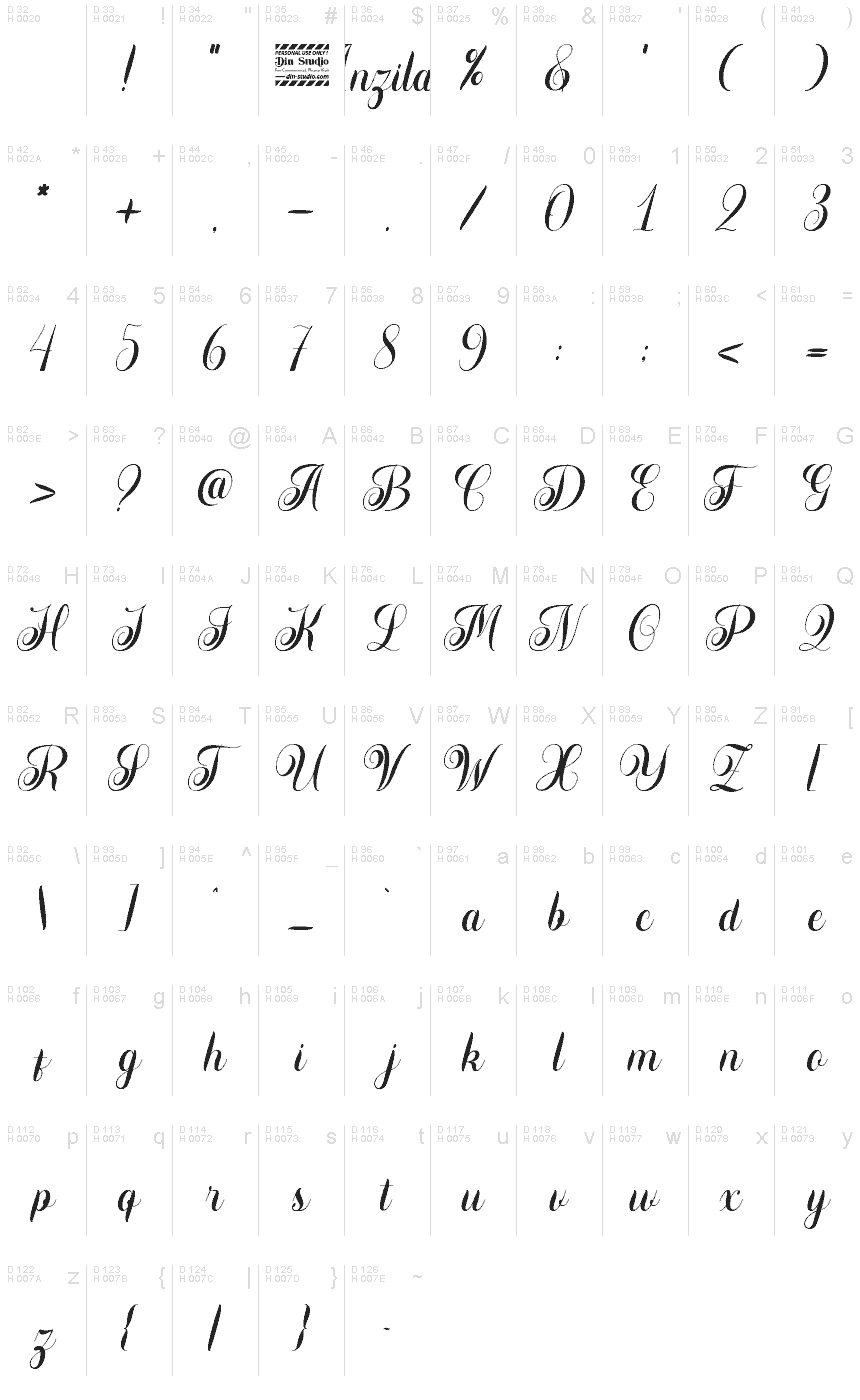
Anzilam Personal Use Only Reg
Anzilam font by Din Studio is a modern calligraphy typeface that exudes elegance and attractiveness. Its flowing script and decorative elements offer a sophisticated appearance with a romantic and classic feel. Designed for professional branding projects, this free calligraphy font delivers versatility and style.
Use it in logos, branding, wedding invitations, quotes, greeting cards, packaging design, social media content, book covers, apparel design, event promotions, labels, or posters. Anzilam has endless potential applications!
Features include:
- Stylish Sets
- Standard Ligatures
- Multilingual Supports
- PUA Encoded
- Numerals and Punctuations